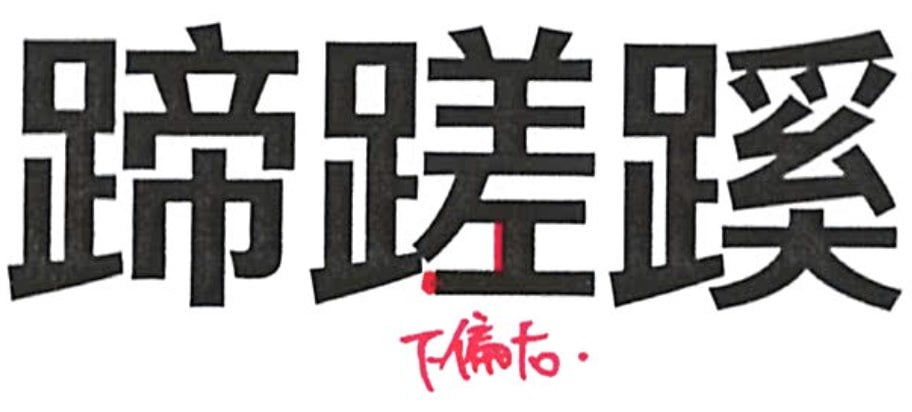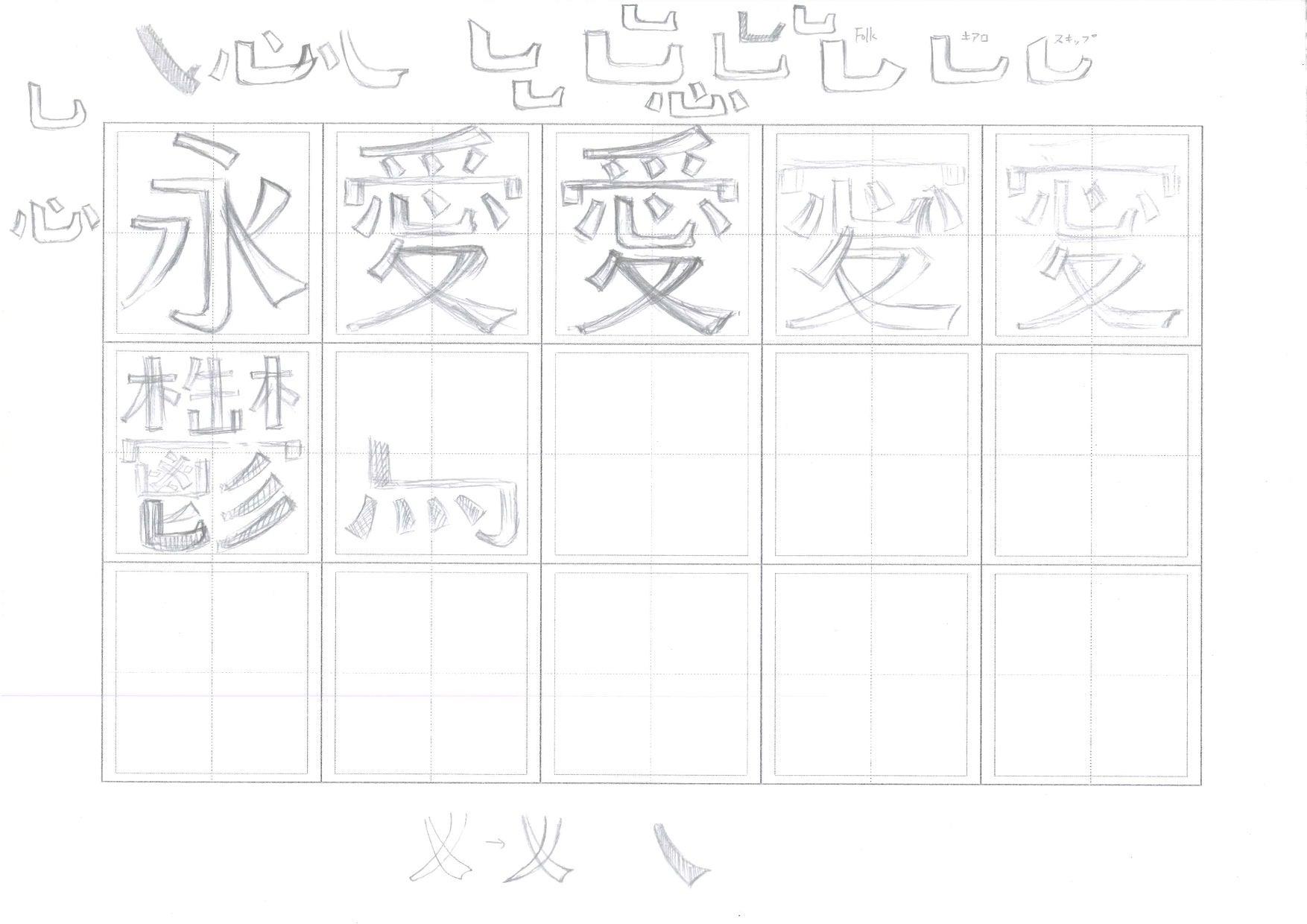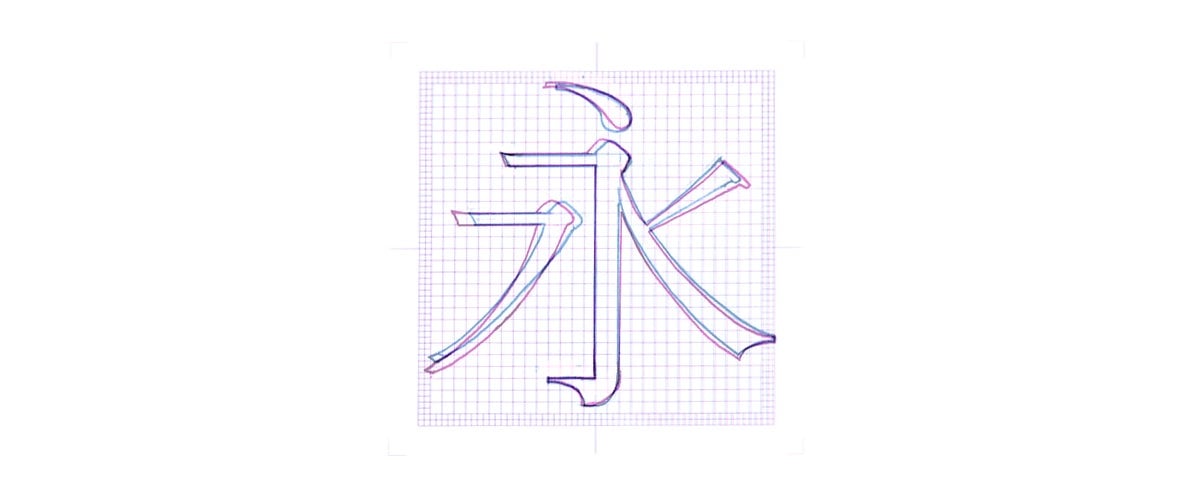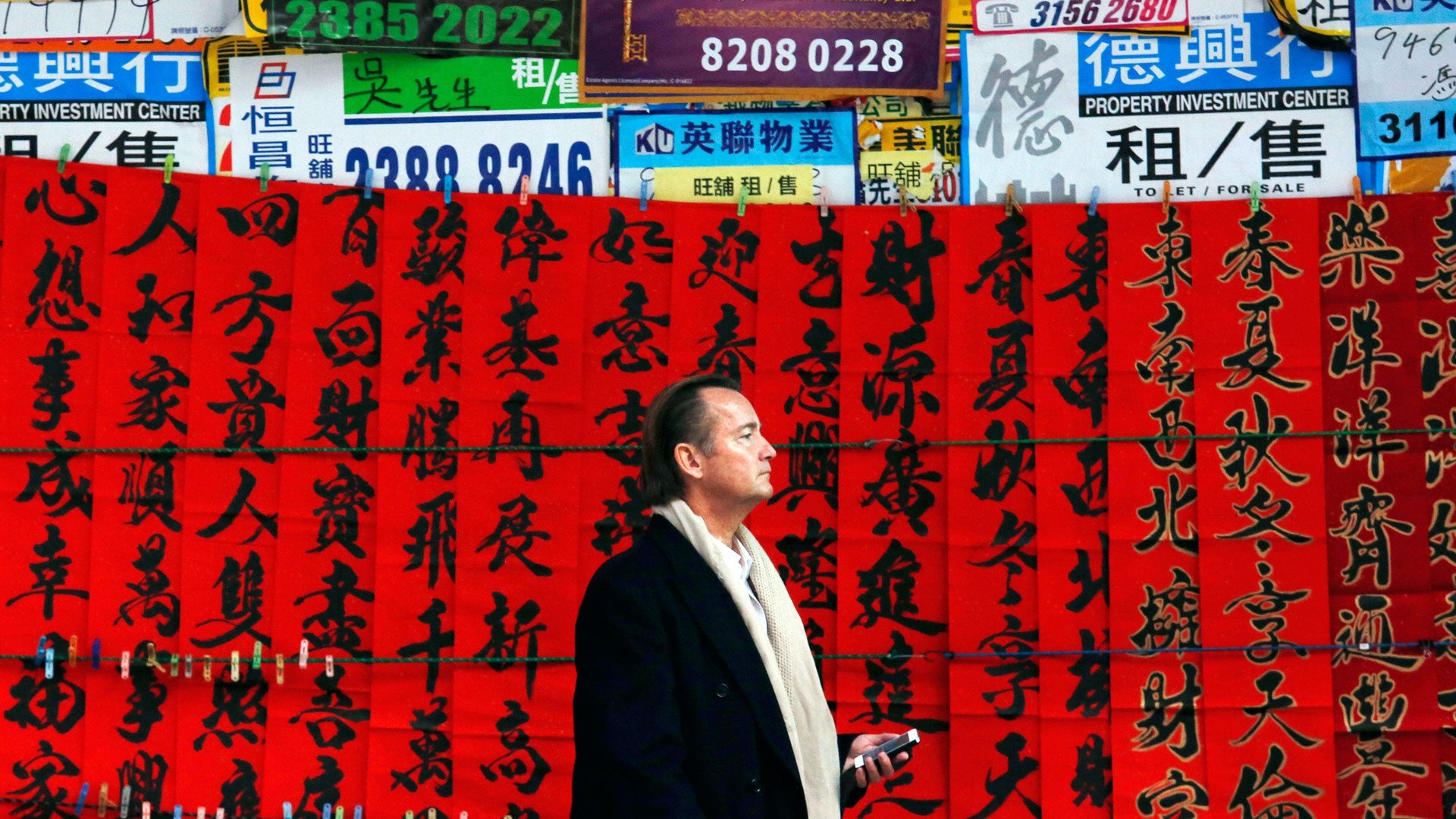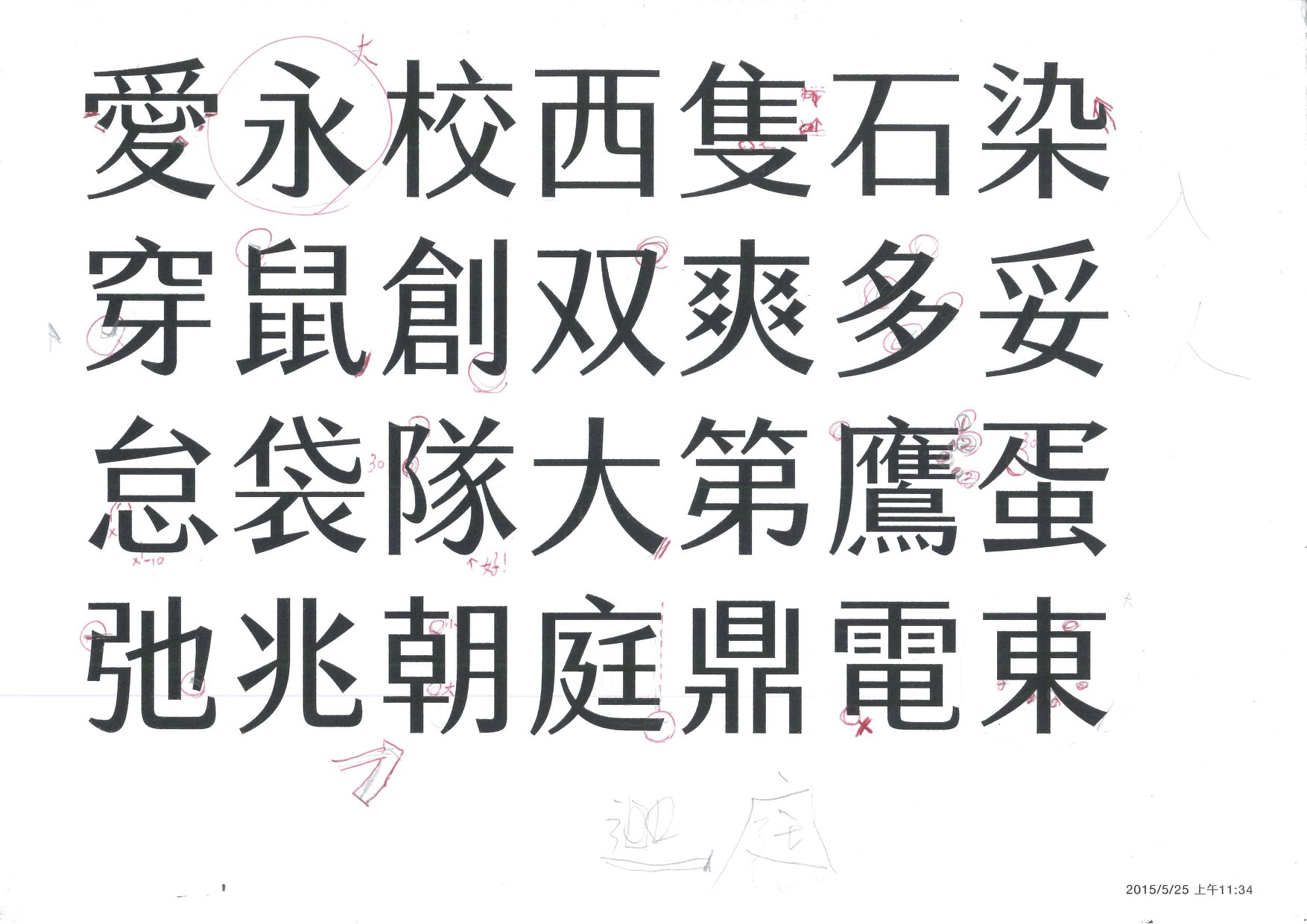
The story of Chinese characters begins with, of all things, turtle bellies.
The kings of the Shang Dynasty—which ruled from the 16th to the 11th centuries BC—had questions. Questions about what the king should do, like whether to “perform a ritual for Father Ding and offer to him thirty captives from the Qiang nomad tribe as well as five penned sheep,” according to one translation (pdf, p. 5). As with many ancient human-rights abusers, the king turned to his royal soothsayers to decide the lives of these captives.
The soothsayers etched these pressing questions directly onto the shoulder blades of oxen and the under-shells of turtles, which are also known as plastrons. They then poked the inscribed animal parts with hot metal rods until cracks formed. The shapes of the cracks served as omens, telling the king whether offering captives was a good idea or a very bad one. Often, the answers were etched directly onto the bones and shells, right next to the prophetic cracks.
Tens of thousands of these etchings, known as “oracle bones,” have survived all the way to today. They are a resilient source of ancient etymology and the earliest-known Chinese characters. Archaeologists date oracle bones to at least the 13th century BC, around the time of the Trojan War, and the characters can still be made out.
Chinese characters have changed considerably in the centuries since, but the biggest transformations are long in the past. The most significant historical shift happened way back in the Qin Dynasty, which ruled in the second century BC. The Qin is celebrated for unifying disparate Chinese writing systems into a single structure. Yet since the time of “regular script”—established over the first several centuries AD and fully mature by the 700s—the characters have remained largely the same, barring numerous calligraphic and stylistic flourishes. The only major development since then came in the 1950s and 1960s, when newly communist China simplified the writing system, hoping to make it more accessible.
Now another big change is afoot, and it’s called fonts.
Part of the reason Chinese writing has changed so little is that China firmly established the writing system by standardizing the script early on, and by inventing a thing called printing. The other factor, though, is that the Chinese writing system is huge.
The conventional wisdom is that a reader needs to know around 2,000 characters to understand a newspaper, and about a thousand more for the average novel. One of the most comprehensive Chinese dictionaries, the Zhonghua Zihai, contains 85,568 characters (though you won’t encounter most of them unless you are really into ancient Buddhism or Song Dynasty calligraphy).
The sheer scale of the writing system has made any innovation ambitious and expensive. It took the communist government over 10 years of dedicated work to complete its character simplification scheme, and even now it is not without controversy. For the same reason, there has not been much innovation in fonts. Raw numbers of fonts are hard to come by, but suffice it to say that there are far fewer for Chinese than there are for Latin languages; there is no Chinese equivalent of those sites that offer 10,000 fonts for $20.
But that is changing. Better technologies for the design, display, and transmission of fonts mean more and better Chinese fonts are on the way. And, increasingly, people want variety, sick of seeing the same fonts over and over.
This is the story of how a Chinese font gets made. It is a story not only of the Chinese writing system itself, but of its limitations, and its frontiers.
Chinese will blow your mind
“Chinese-script projects are crazy. The scope is mind-blowing.”
So says font designer David Březina, chief type officer at Rosetta Type, a Czech firm that specializes in designing custom typefaces for multiple scripts (a font is a digital representation of a typeface).
To see what Březina means, consider a letter: e. Deciding what an e looks like is the job of typeface designers. To design a typeface for English, a designer needs to create symbols for each of the 26 Roman letters in upper and lower case, as well as punctuation, numbers, and so on. Each of these symbols is called a “glyph.”
Each Chinese character is a glyph, too—for instance, 水 (that’s shui, which means “water”). Behind the e glyph and the 水 glyph, however, are two very different processes. The main difference is scale.
The default set for English-language fonts contains about 230 glyphs. A font that covers all of the Latin scripts—that’s over 100 languages plus extra symbols—contains 840 glyphs, according to Březina. The simplified version of Chinese, used primarily in mainland China, requires nearly 7,000 glyphs. For traditional Chinese, used in Taiwan and Hong Kong, the number of glyphs is 13,053.
An experienced designer, working alone, can in under six months create a new font that covers dozens of Western languages. For a single Chinese font it takes a team of several designers at least two years.
Laying the groundwork
“It all starts with research,” says Winston Su, co-founder of Justfont, a Taiwanese startup that focuses on delivering fonts through the web. In most cases, the research phase lasts an entire year.
And the interest Justfont generated at home shows that the people demand better fonts.
“Most people think fonts appear out of the computer,” says Arphic’s Mou. They don’t. The process is long and painstaking. “But making them is a lot of fun.”
We’re a long way from the turtle shells.